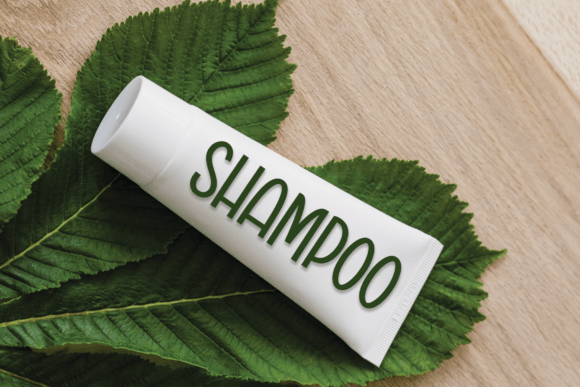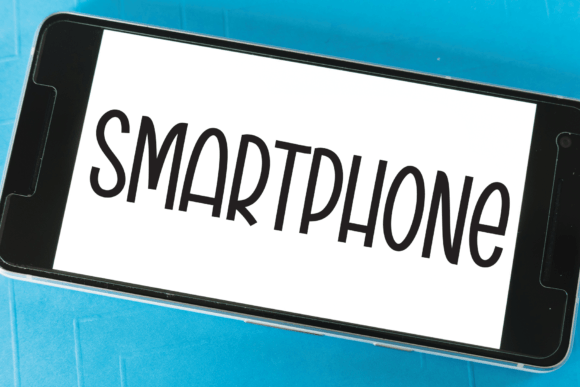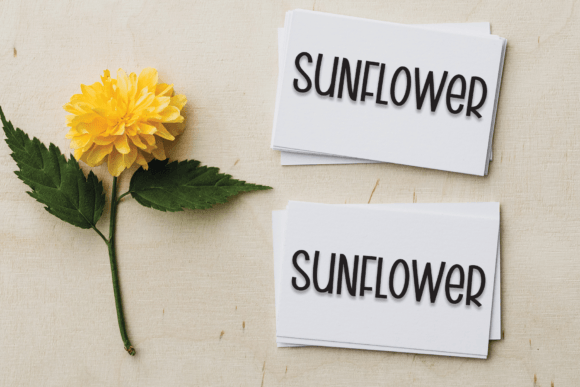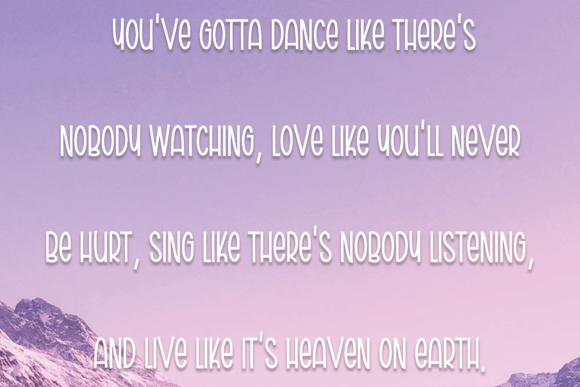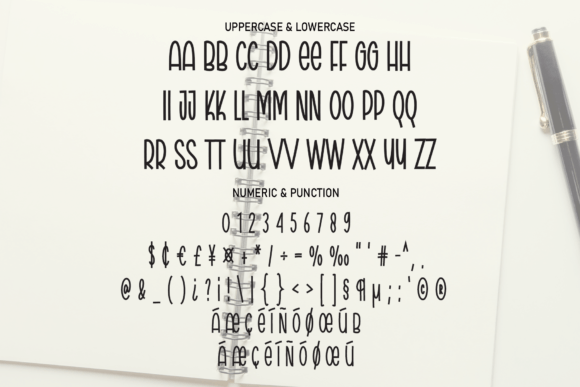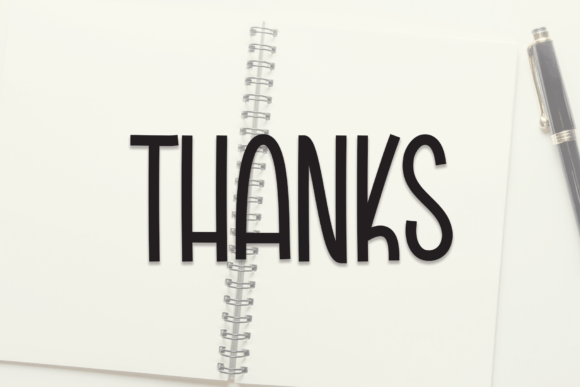
Writing Book Font
About Writing Book Font
The latest trends in writing book styles offer a wide array of impeccably designed letters that are perfect for a multitude of applications. These beautifully crafted letters are not just a means of communication but also serve as an art form in themselves, enhancing various projects and adding a unique touch of elegance. With their versatility and aesthetic appeal, they have become the go-to choice for a range of creative endeavors, from wall displays to wedding invitations, social media post logos to advertisements, product packaging to product designs, labels to photography, watermarks to invitations, and even stationery.
One of the most popular uses of these exquisite writing book styles is in wall displays. Whether you’re decorating your home, office, or a public space, these letters can turn any wall into a visually striking masterpiece. Their handwritten charm adds a sense of authenticity and warmth to the environment, making them a preferred choice for interior designers and decorators.
When it comes to special occasions like weddings, these lettering styles shine. Wedding invitations play a crucial role in setting the tone for the event, and the right choice of fonts can make all the difference. The latest writing book styles offer a perfect blend of sophistication and personality, making them ideal for creating invitations that leave a lasting impression on guests.
In the digital age, social media has become a prominent platform for self-expression and marketing. Using these lettering styles for social media post logos can help your content stand out in the crowded digital landscape. Whether you’re a brand looking to create a distinct online presence or an individual sharing your creative work, these letterforms can help you achieve a unique and memorable identity.
Moreover, businesses and product designers are increasingly turning to these styles for their branding needs. From advertisements to product packaging and labels, these fonts add a touch of artistry and sophistication that appeals to modern consumers. They create a sense of craftsmanship and quality, which can positively influence customers’ perception of a product.
Additionally, photographers and artists use these lettering styles as watermarks to protect their work and add a signature touch. The elegant and personalized nature of these letters ensures that your creative output is not only safeguarded but also recognized as your own.
From formal invitations to everyday stationery, these writing book styles cater to a wide range of projects, providing a handwritten taste that elevates their overall appeal. With their versatility and aesthetic charm, they have become an indispensable tool for anyone looking to infuse a touch of artistry and personality into their work.
In conclusion, the latest writing book styles offer an impressive range of letters that can enhance the visual appeal and impact of a variety of projects. Whether you’re planning a special event, marketing a product, or simply adding a personal touch to your creations, these styles provide a versatile and elegant solution that resonates with modern aesthetics. Their handwritten taste adds a unique dimension to your work, making it more captivating and memorable.